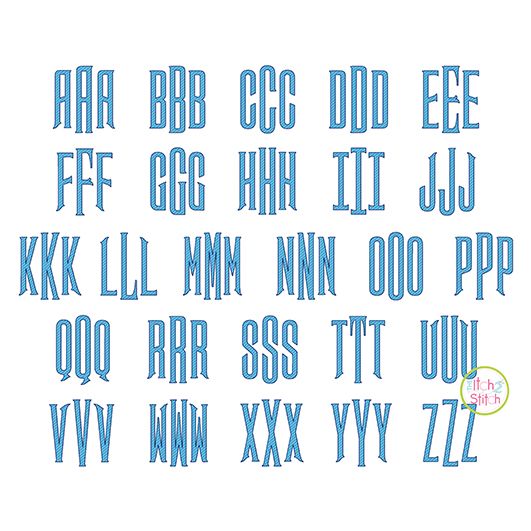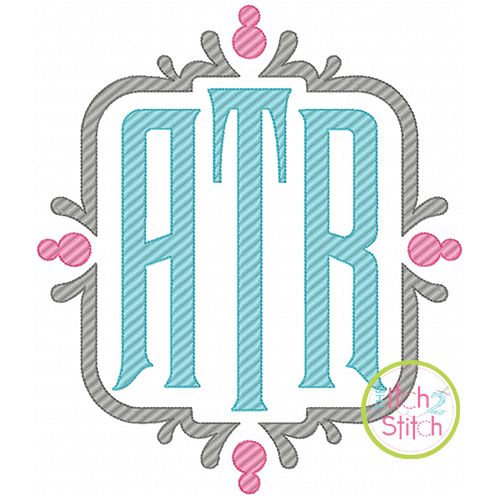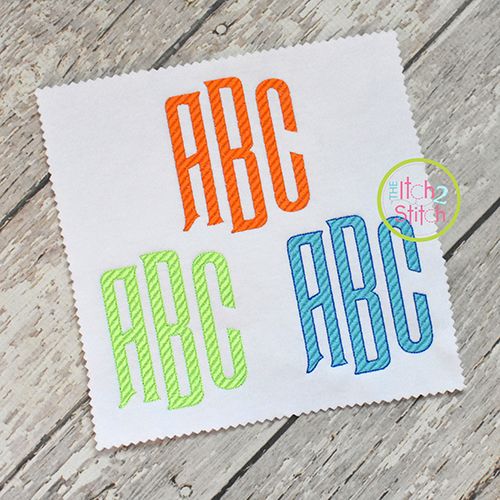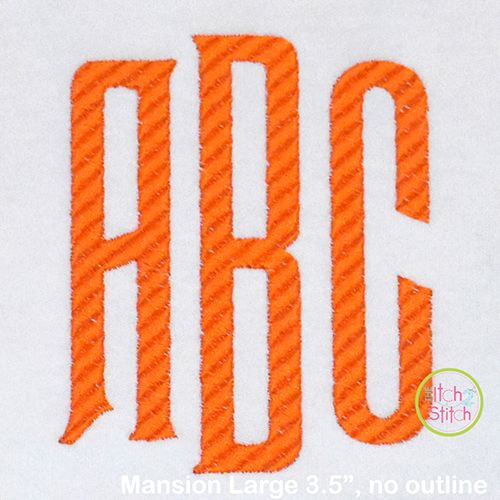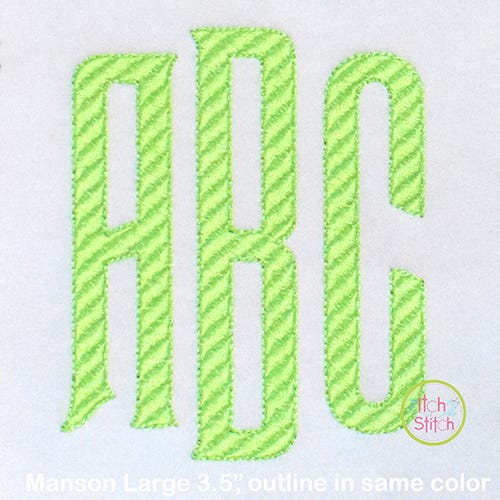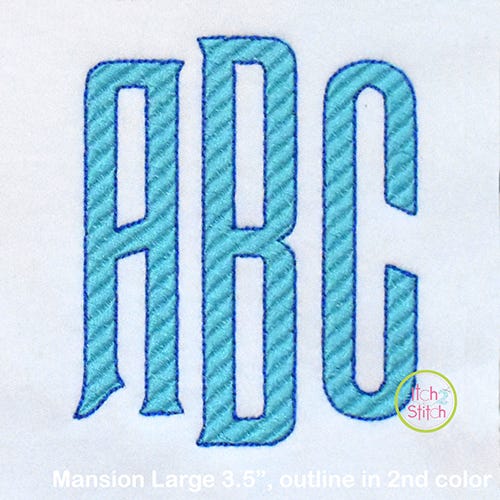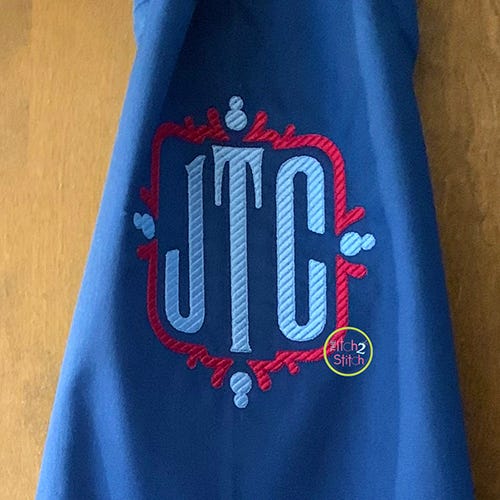
Each letter is digitized with a striped fill stitch pattern and a triple bean stitch outline. The outline can be skipped, stitched in a matching color, or stitched in a contrasting color.